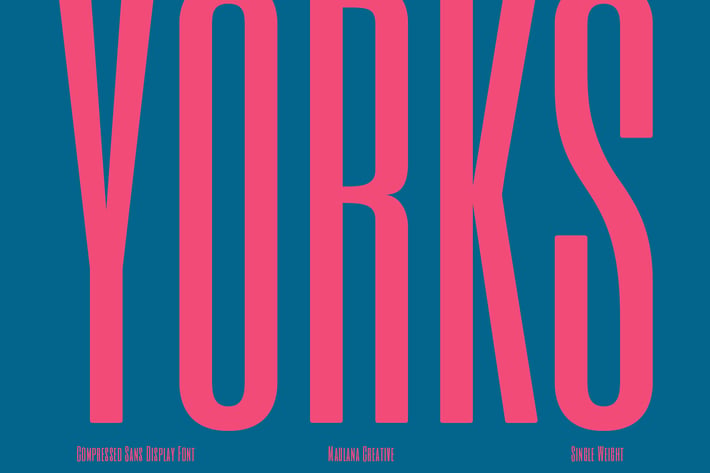
Yorks Compressed Sans Font
Yorks is a Compressed sans Display font. Regular stroke, fun character with a bit of ligatures and alternates. To give you an extra creative work. Yorks font support multilingual more than 100+ language. This font is good for logo design, Social media, Movie Titles, Books Titles, a short text even a long text letter and good for your secondary text font with script or serif. Make a stunning work with Yorks font.